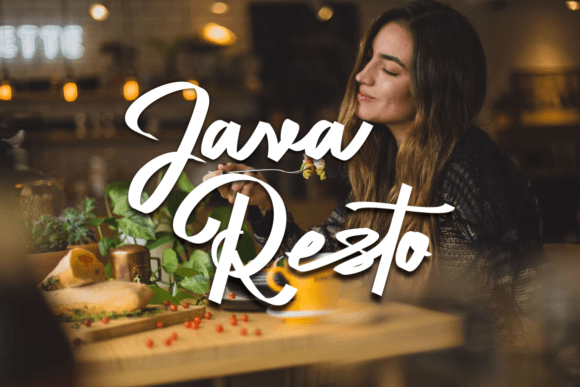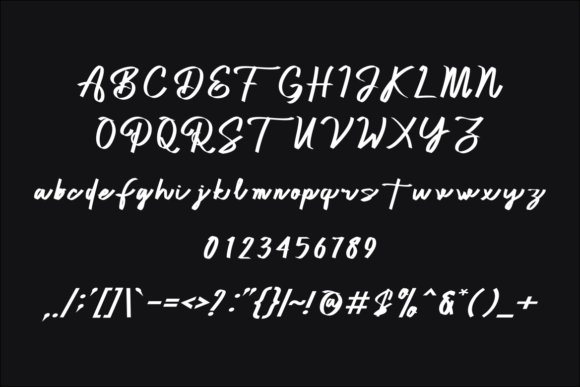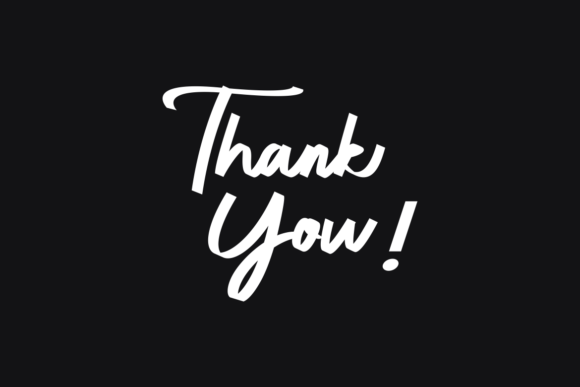
The Perfect Touch: Unleashing the Beauty of Darlentte Font
Have you ever been working on a creative project, pouring your heart and soul into it, only to feel like something’s missing? That’s when inspiration strikes, and you stumble upon the perfect solution. For designers and creatives, finding the right font can be a game-changer. And, if you’re looking for a font that adds a touch of elegance to your work, look no further than the Darlentte Font.
This gorgeous handwritten font is designed to add a personal and natural touch to your designs. Its unique style is sure to impress, making it a valuable addition to any designer’s toolkit. Whether you’re working on a wedding invitation, a branding project, or a simple blog post, Darlentte Font is the perfect choice to elevate your creative ideas and transform them into authentic pieces of art.
- Unique Characteristics: The font features a unique blend of modern and vintage elements, with intricate details and subtle texture, making it perfect for creative and artistic projects.
Darlentte Font Review
I’ve had the chance to work with the Darlentte font, and I must say, it has its strengths and weaknesses. Let’s start with the good stuff:
- ✨ Unique Character: The Darlentte font has a distinctive, elegant feel to it. It’s perfect for projects that require a touch of sophistication.
- ✨ Versatility: This font is surprisingly versatile, working well in a variety of contexts, from headings to body text.
- ✨ Legibility: The font is highly legible, even at smaller font sizes, making it ideal for digital applications.
- ⚠️ Limited Character Set: The Darlentte font has a relatively small character set, which can make it less suitable for projects that require a wide range of languages or special characters.
- ⚠️ Font Size: While the font is legible at smaller sizes, it can appear somewhat thin and fragile at larger sizes, which may not be ideal for print applications.
Overall, I’d say the Darlentte font is a solid choice for designers who want to add a touch of elegance to their projects. While it has its limitations, it’s well-suited for digital applications and can be a great addition to any designer’s toolkit.
Darlentte Font is commonly used in:
– Branding and logo design
– Digital signage and advertising
– Print materials such as business cards and brochures
– Web design and development